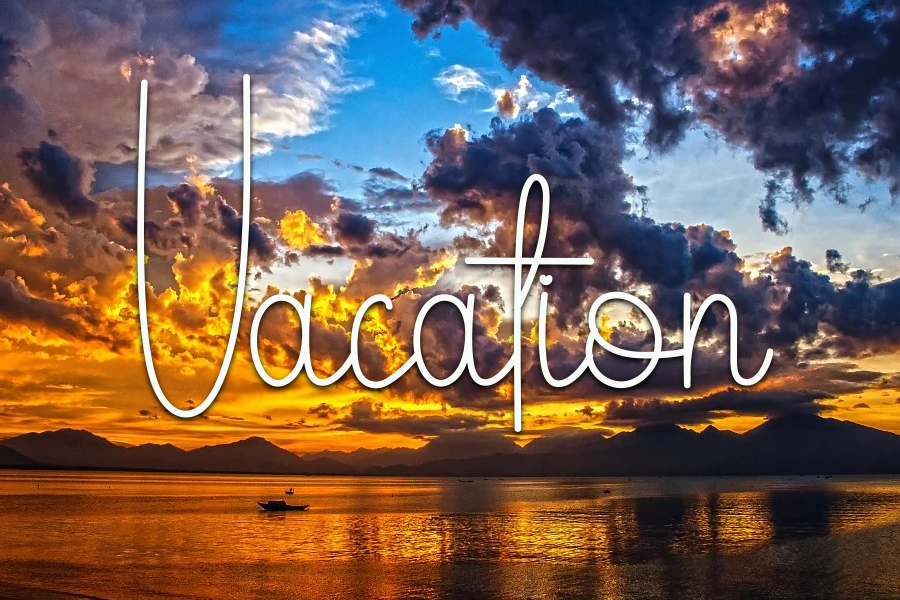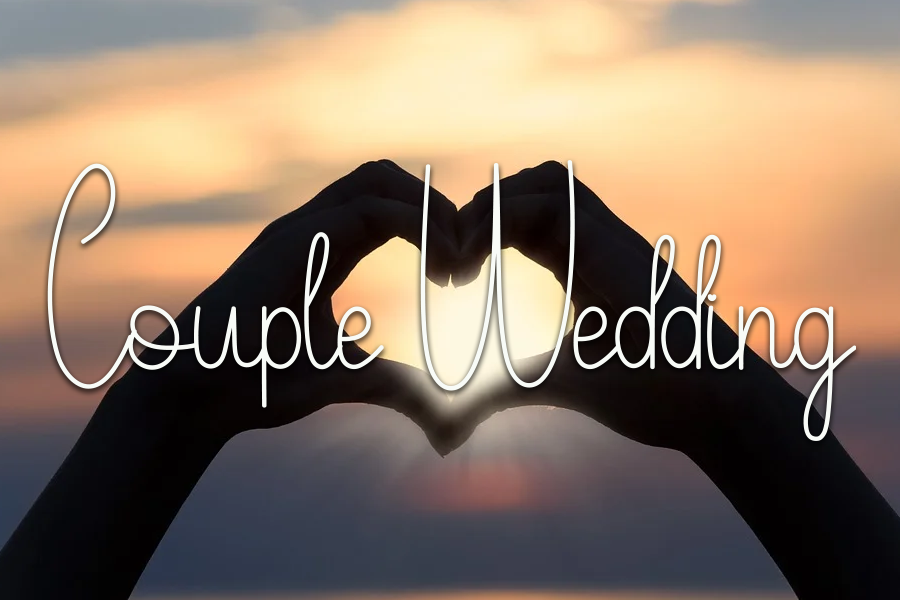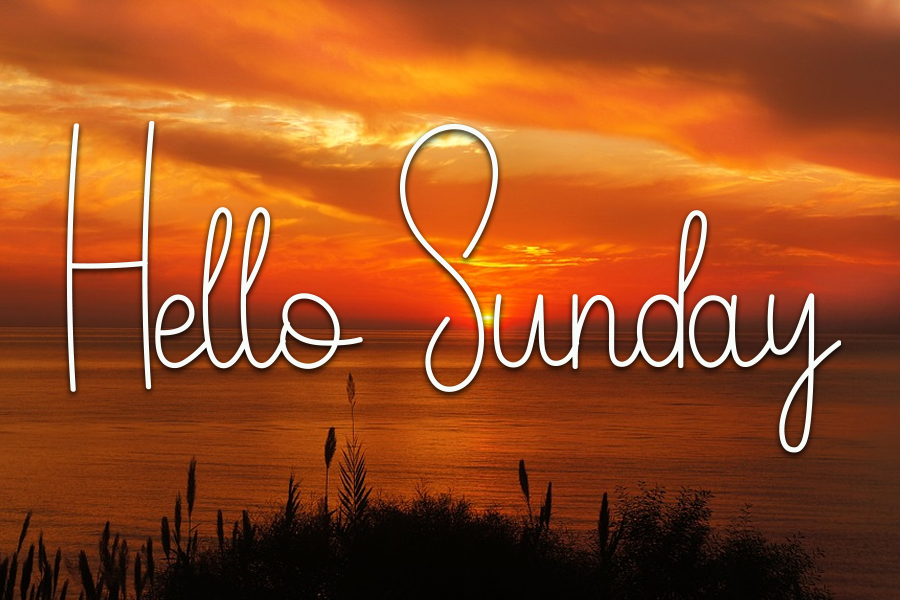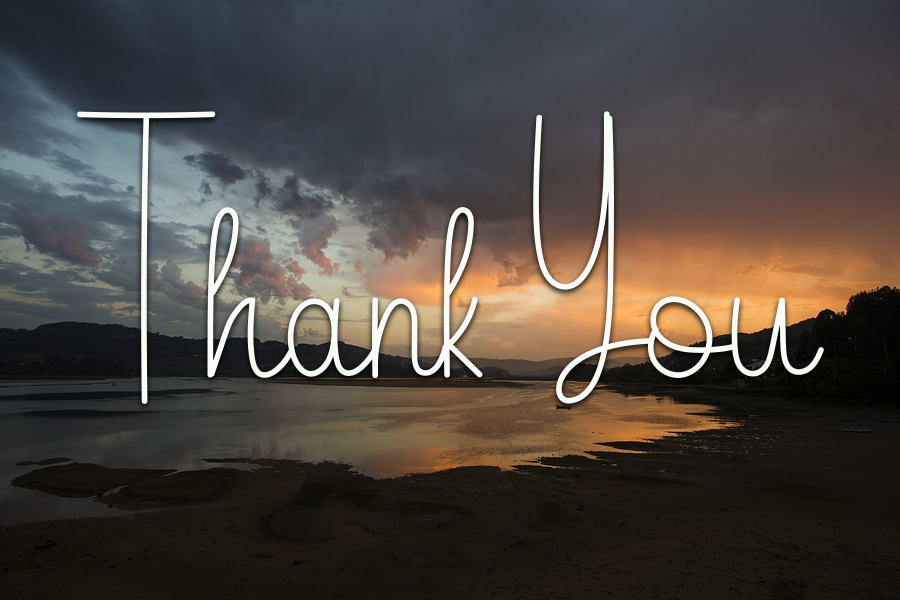
Summer Signature Script Typeface
This is a delicate handwritten font that has a modern yet whimsical style. It will undoubtedly immerse your designs into a magical world.
It’s a simple handwriting perfect for weddings, wall hangings, decorations, products and more